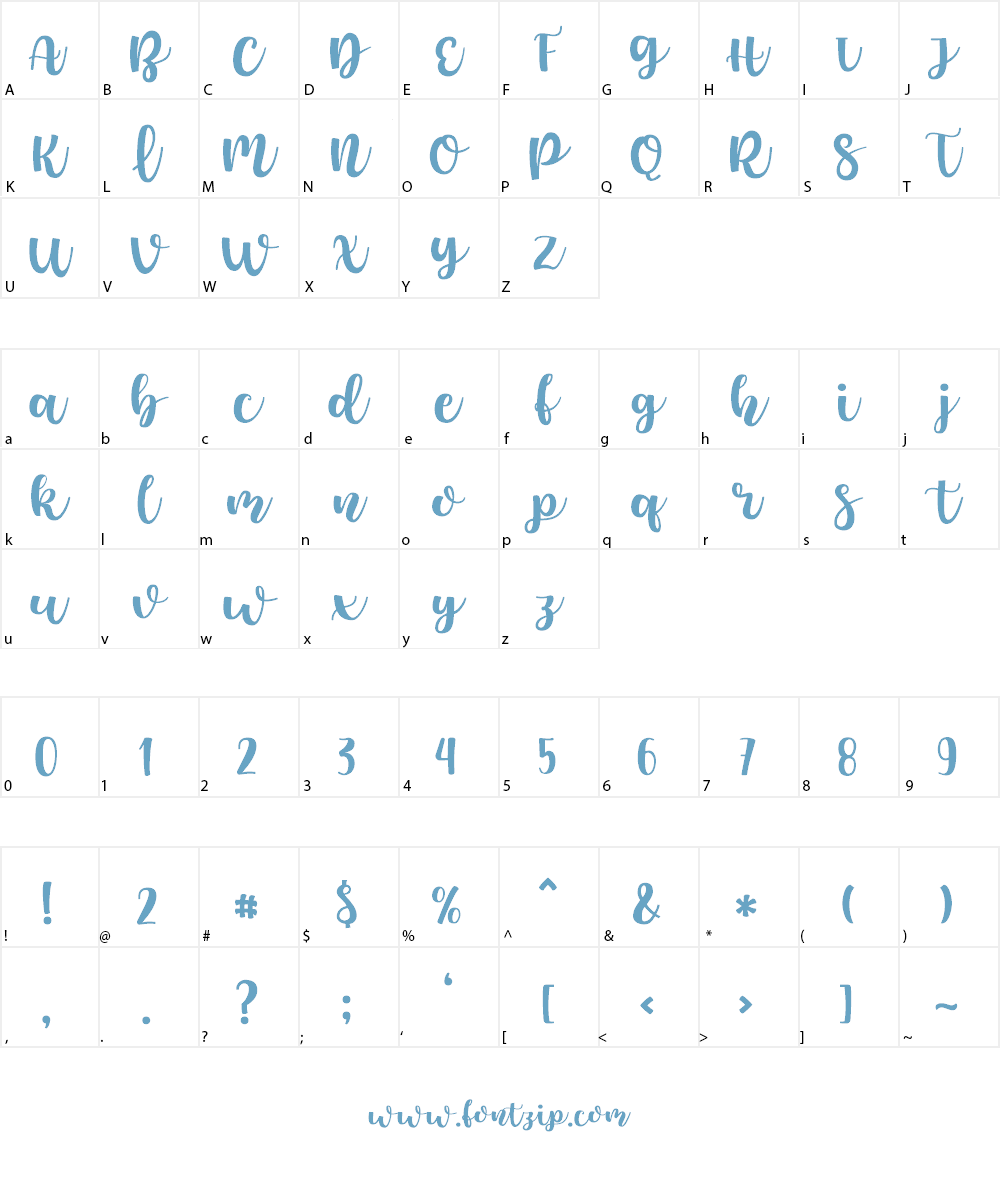
KING BILLY FONT
A bouncy and stylish handwritten script font.
Achieve that beautiful hand lettering looks in an instantly easy way with this stylish script font.
This clean look font would also be an ideal fit for various projects, such as: logos, planner prints, cutting projects, product packaging, headers, social media, website and whatever your imagination holds.